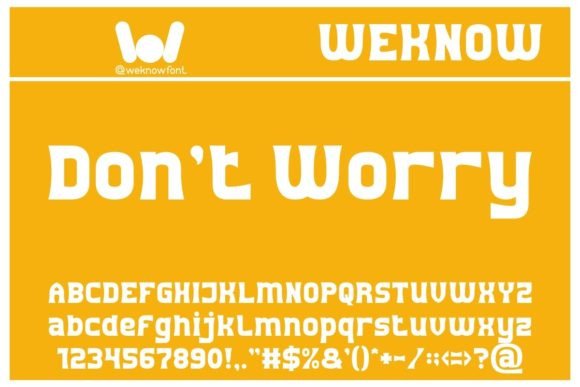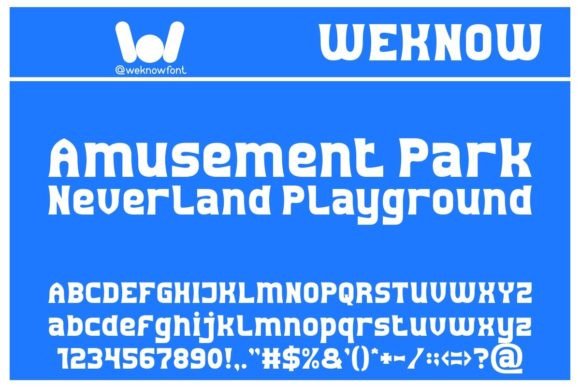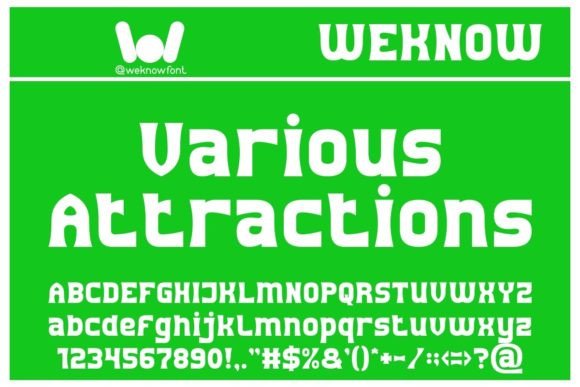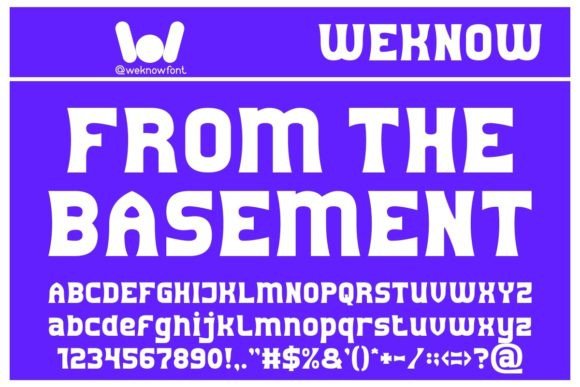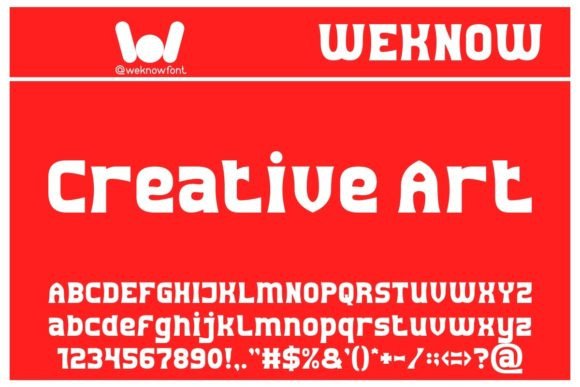
Introducing Be Happy Font: The Ultimate Choice for Creative Design Projects
Are you a designer, crafty enthusiast, or simply someone who loves to express themselves through creative projects? Look no further! We’re excited to introduce you to Be Happy Font, a stunning fancy display font that’s perfect for a wide range of applications. In this article, we’ll dive into the features, benefits, and uses of Be Happy Font, and explore how it can elevate your designs to the next level.
What is Be Happy Font?
Be Happy Font is a beautifully crafted display font that’s designed to make a statement. Its unique and elegant style makes it an excellent choice for a variety of creative projects, including logos, logotypes, headlines, corporate identities, brand identities, apparel, posters, music, movies, games, magazines, books, comics, cartoons, YouTube videos, Instagram posts, websites, and more.
Key Features of Be Happy Font
- Fancy Display Font: Be Happy Font is a decorative font that’s designed to grab attention and add a touch of sophistication to your designs.
- Highly Versatile: This font is suitable for a wide range of applications, from logos and branding to posters, magazines, and digital media.
- Elegant and Unique: Be Happy Font features a distinctive style that’s both elegant and eye-catching, making it perfect for designers who want to create something special.
Benefits of Using Be Happy Font
So, why choose Be Happy Font for your next design project? Here are just a few benefits of using this amazing font:
- Stand Out from the Crowd: With Be Happy Font, you can create designs that are truly unique and attention-grabbing.
- Save Time and Effort: This font is easy to use and customize, saving you time and effort in the design process.
- Professional-Grade Quality: Be Happy Font is designed to deliver high-quality results, ensuring that your designs look professional and polished.
Use Cases for Be Happy Font
Be Happy Font is an incredibly versatile font that can be used in a variety of contexts. Here are some ideas to get you started:
- Logo Design: Create a stunning logo for your brand or business using Be Happy Font.
- Poster Design: Use Be Happy Font to create eye-catching posters for events, promotions, or advertising campaigns.
- Social Media Graphics: Add a touch of elegance to your social media graphics, including YouTube videos, Instagram posts, and Facebook updates.
- Apparel Design: Create stylish and unique apparel designs using Be Happy Font, perfect for t-shirts, hoodies, and more.
Tips for Using Be Happy Font
To get the most out of Be Happy Font, here are a few tips to keep in mind:
- Experiment with Colors: Try pairing Be Happy Font with different colors to create unique and eye-catching effects.
- Play with Sizes: Experiment with different font sizes to add emphasis and create visual interest.
- Mix and Match: Combine Be Happy Font with other fonts to create a unique and personalized look.